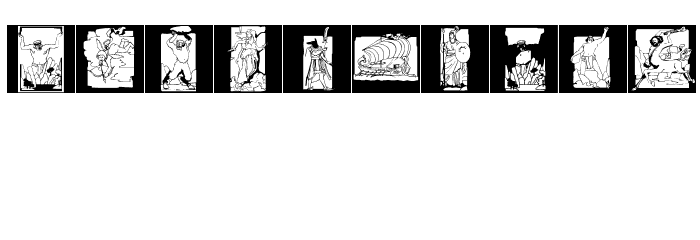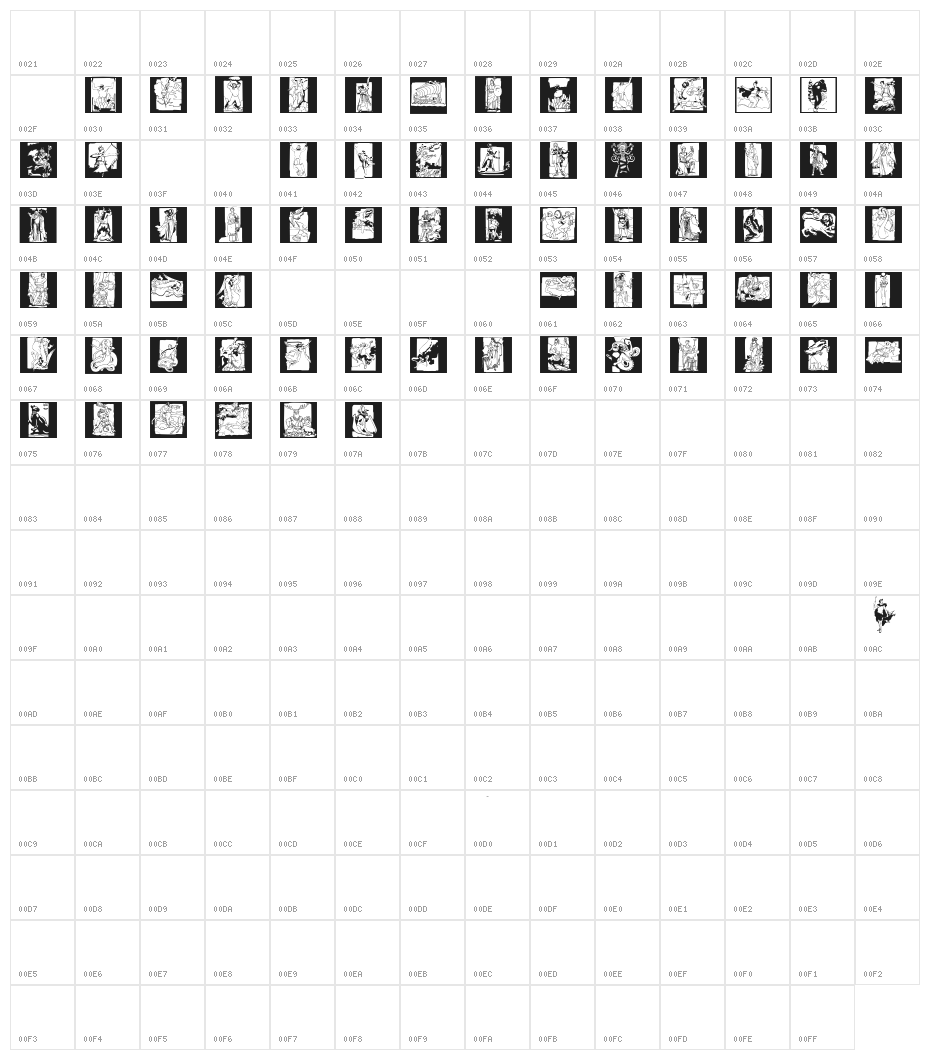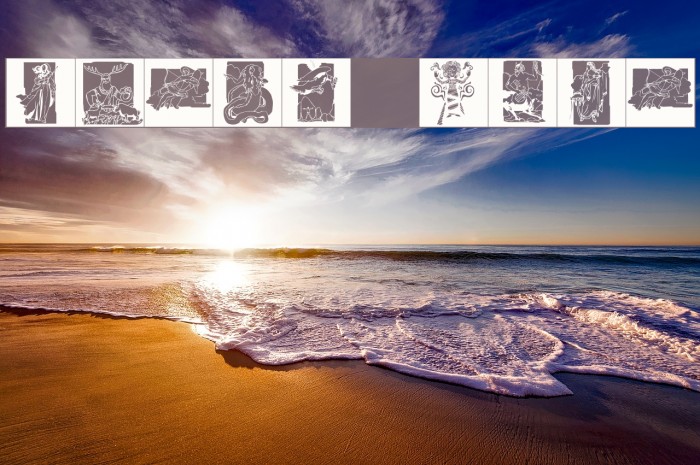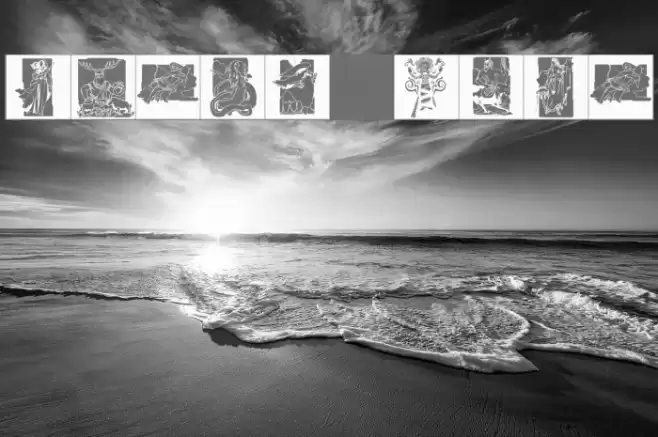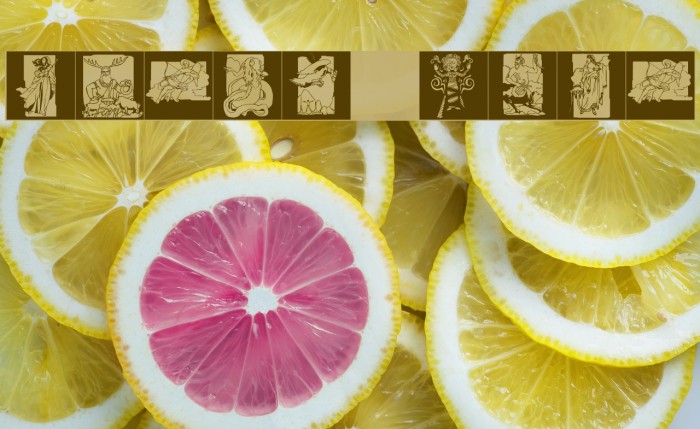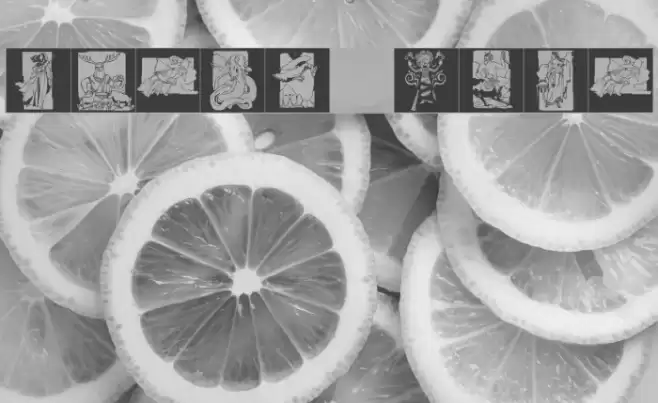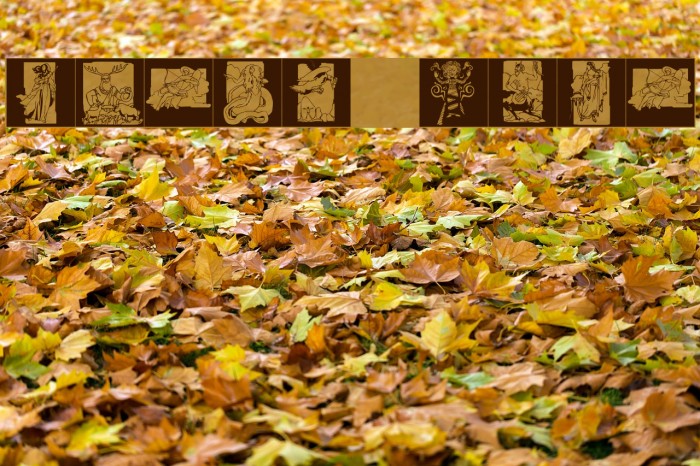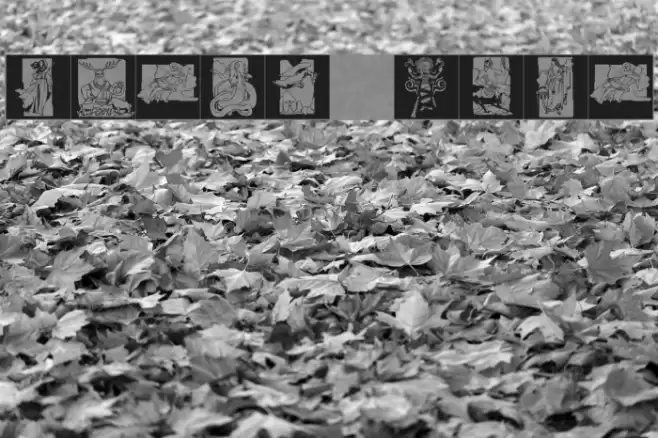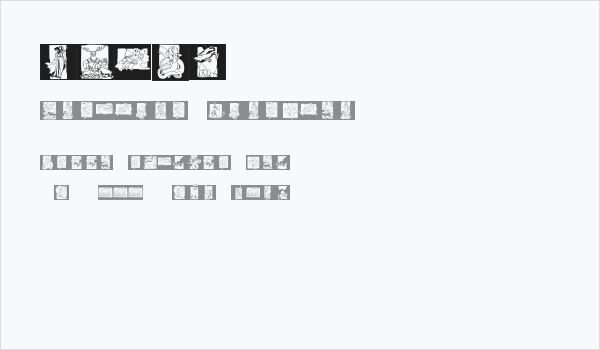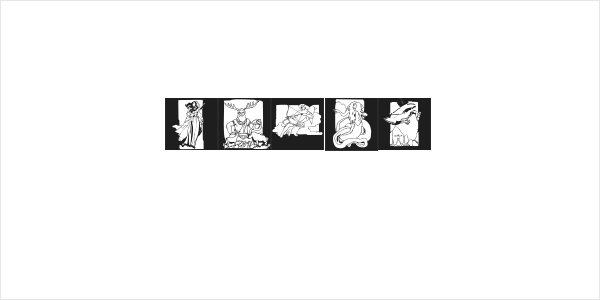
Myths Font
Myths Description
A decorative display font featuring detailed black-and-white illustrations inspired by mythological figures and scenes, with each character represented by a unique myth-themed drawing inside a rectangular frame.
| Overall Style | Decorative, Thematic, Illustrated |
| Use Case | Headlines, Logos, Themed graphics |
| Proposed Projects | Book covers, posters, educational materials, themed event invitations, fantasy games. |